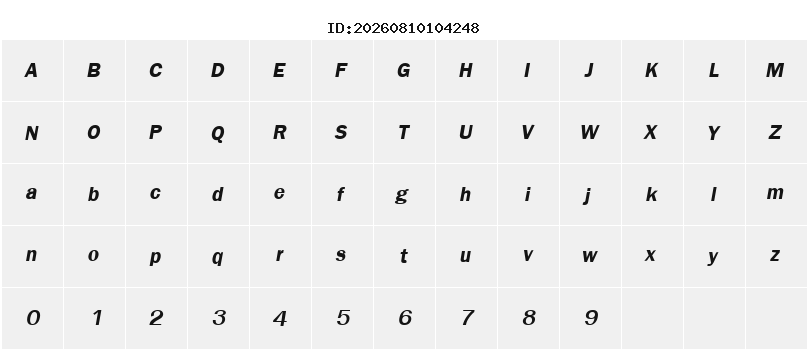
• Font Name: P5 BrowalliaUPC
• Font ID: FontMonger:BrowalliaUPC Bold Italic
• Full Font Name: P5 BrowalliaUPC Bold Italic
• PostScript Name: BrowalliaUPCBoldItalic
About P5 BrowalliaUPC.ttf
P5 BrowalliaUPC.ttf is a modern, elegant sans-serif font designed for ultimate readability and visual harmony. Perfect for branding, headlines, web design, and print materials.